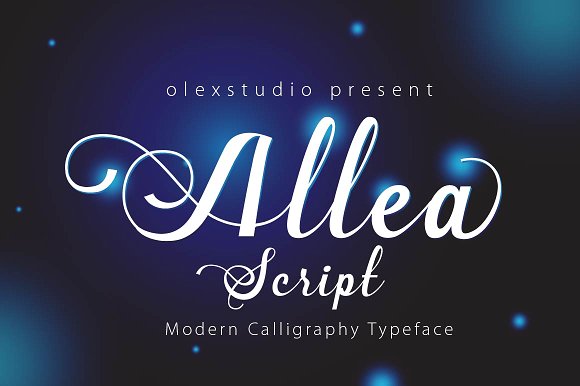
New Allea Font
Font Name : New Allea Font
Author : Olexstudio
Introducing New Allea Font, a mesmeric handwritten script font crafted by the artistic hands at Olexstudio, ready to take your creative projects to new heights. With its graceful flow and elegant charm, New Allea is the perfect choice for those seeking a font that exudes both professionalism and a touch of playful creativity.
Immerse yourself in the world of New Allea, a font that effortlessly blends timeless beauty with modern flair. This is not just a font; it's an experience that will transform your designs into masterpieces. Its smooth curves and delicate strokes create a visual symphony that captivates the eyes and ignites the imagination.
New Allea's versatility is a testament to its boundless potential. It seamlessly adapts to a myriad of projects, from branding and marketing campaigns to personal crafts and heartfelt invitations. Its legibility and clarity make it an ideal choice for both digital and print applications, ensuring your messages are conveyed with precision and impact.
With New Allea, you possess the power to evoke emotions and create lasting impressions. Its inherent charm adds a touch of sophistication to your designs, while its playful spirit brings a smile to the faces of your audience. It's the perfect font for crafting heartfelt messages, capturing special moments, and leaving an indelible mark on the hearts of your readers.
Unlock the boundless possibilities of New Allea today and witness the transformation of your creative endeavors. Experience the joy of seamless readability, the magic of captivating aesthetics, and the satisfaction of creating designs that truly resonate with your audience. Embrace the beauty of New Allea and let your creativity soar to new heights.